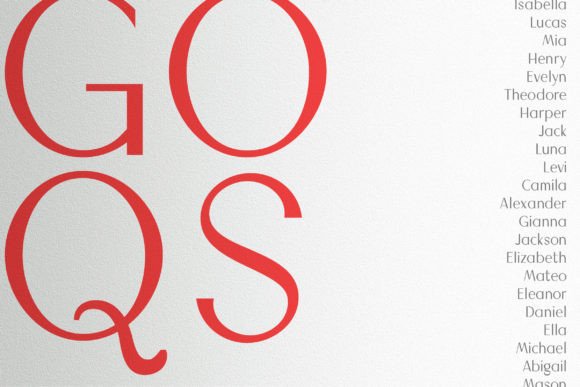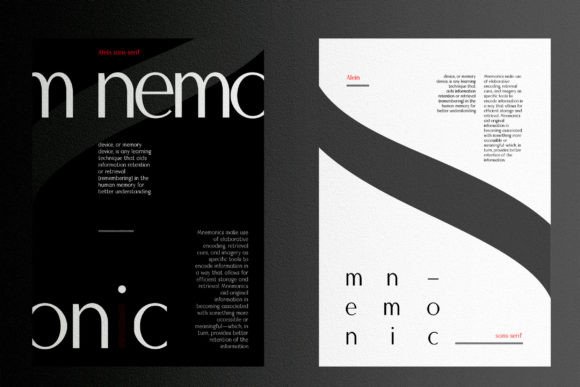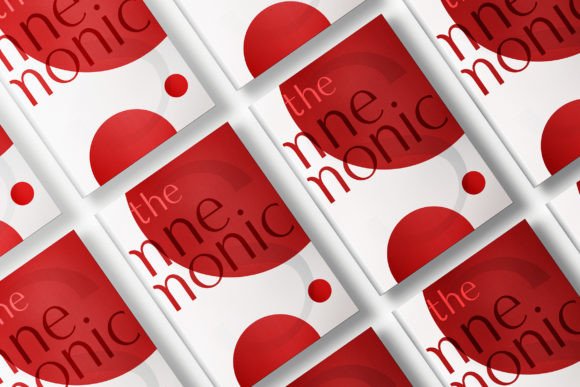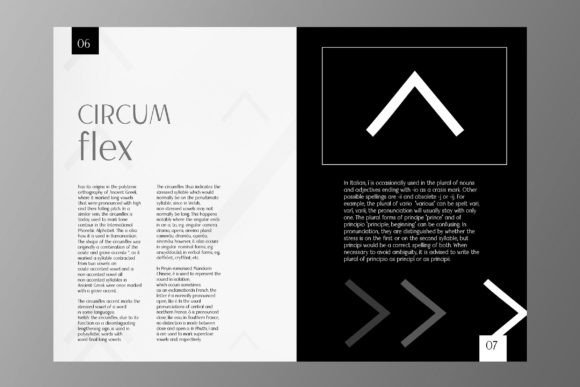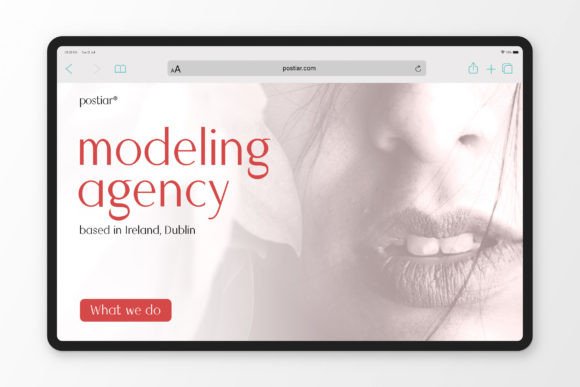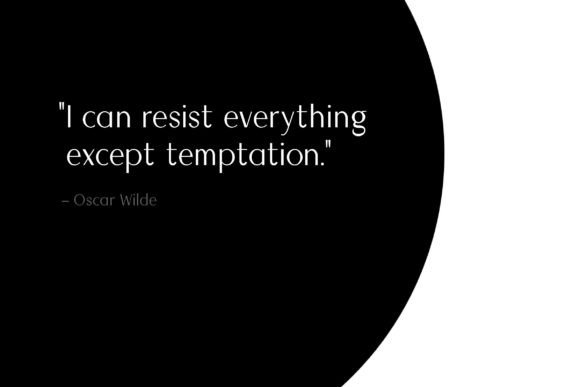
Discovering the Perfect Font: A Creative’s Best Friend
Remember that moment when you finally find the perfect font to match your design vision? It’s like a breath of fresh air, isn’t it? The typeface that brings everything together, elevating your creation from good to great. For designers, finding the right font can be a game-changer, and today we’re excited to introduce you to Alein Font – a modern and clean sans serif font that’s about to become your new go-to.
Alein Font is designed to be versatile, making it perfect for a wide range of projects, from logos and weddings to advertisements and magazines. Its clean lines and modern feel make it an excellent choice for designers who want to create visually appealing and professional-looking designs. With Alein Font, you can take your designs to the next level and make a lasting impression on your audience.
Alein Font Key Features
- Font Family: Alein is a sans-serif font family, designed to provide a clean and modern look.
- Unique Characteristics: Alein features a unique blend of geometric and organic shapes, giving it a distinctive and modern look.
- Character Set: Alein supports a wide range of languages, including Latin, Cyrillic, Greek, and many others, making it a versatile font for global use.
Alein Font Review
Initially, I was quite excited to dive into the Alein Font. The first thing that caught my eye was its unique and quirky aesthetic ✨. The font’s geometric shapes and futuristic feel make it perfect for designers looking to add a touch of sci-fi to their projects. The font’s bold and playful nature makes it ideal for use in headings, titles, and even logos.
However, upon closer inspection, I noticed that the font’s consistency is somewhat lacking ⚠️. Some characters, such as the lowercase ‘a’ and ‘e’, seem to be slightly misaligned. This can make the text appear uneven and less polished than it should be. Additionally, the font’s weight and spacing can be a bit too extreme in some cases, which may require additional adjustments to achieve the desired look.
- Unique and quirky aesthetic ✨
- Geometric shapes and futuristic feel
- Bold and playful nature
- Perfect for headings, titles, and logos
- Inconsistent character alignment ⚠️
- Extreme weight and spacing in some cases
Overall, I would say that Alein Font is a decent choice for designers looking to add a touch of futurism to their work. While it has its limitations, the font’s unique aesthetic and bold nature make it worth considering. However, be prepared to make some adjustments to get the best out of it.
Getting the Most Out of Alein Font
To get the most out of Alein Font, use it for titles, headings, and emphasis in your designs. This font is ideal for creating a futuristic or sci-fi theme. Experiment with different font sizes, colors, and combinations to create visually appealing designs.
Alein Font is commonly used in graphic design, UI/UX design, and digital art. It’s particularly effective in creating futuristic or tech-related themes, such as video game logos, sci-fi movie posters, or futuristic cityscapes.
Alternatives to Alein Font
Montserrat is a sans-serif font designed for digital use. It’s a popular alternative to Alein Font due to its modern and clean aesthetic. Montserrat is ideal for use in digital products, websites, and mobile applications where legibility is crucial. Compared to Alein Font, Montserrat has a more geometric and industrial feel, making it suitable for tech and startup brands.
Inter is a modern sans-serif font designed by Rasmus Andersson. It’s a highly legible font that works well in both digital and print mediums. Inter is a great alternative to Alein Font for designers who want a font that’s both elegant and functional. Compared to Alein Font, Inter has a more refined and sophisticated feel, making it suitable for corporate and luxury brands.